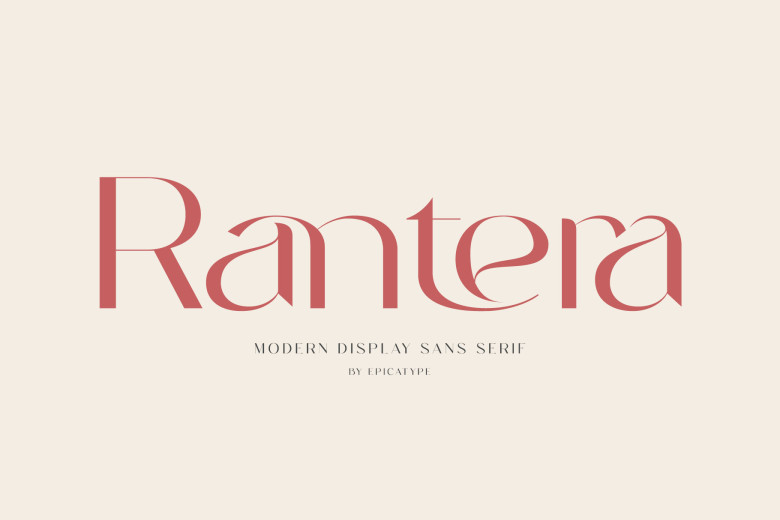
Rantera Font
Rantera is a unique and modern Sans Serif. The soft curves mixed with high contrast glyphs make this font both feminine and masculine without being too friendly or bossy. With epic ligatures, this font works perfectly in layout designs for quotes or body copy, and it will also make a nice logo design.
Rantera Sans Serif Font